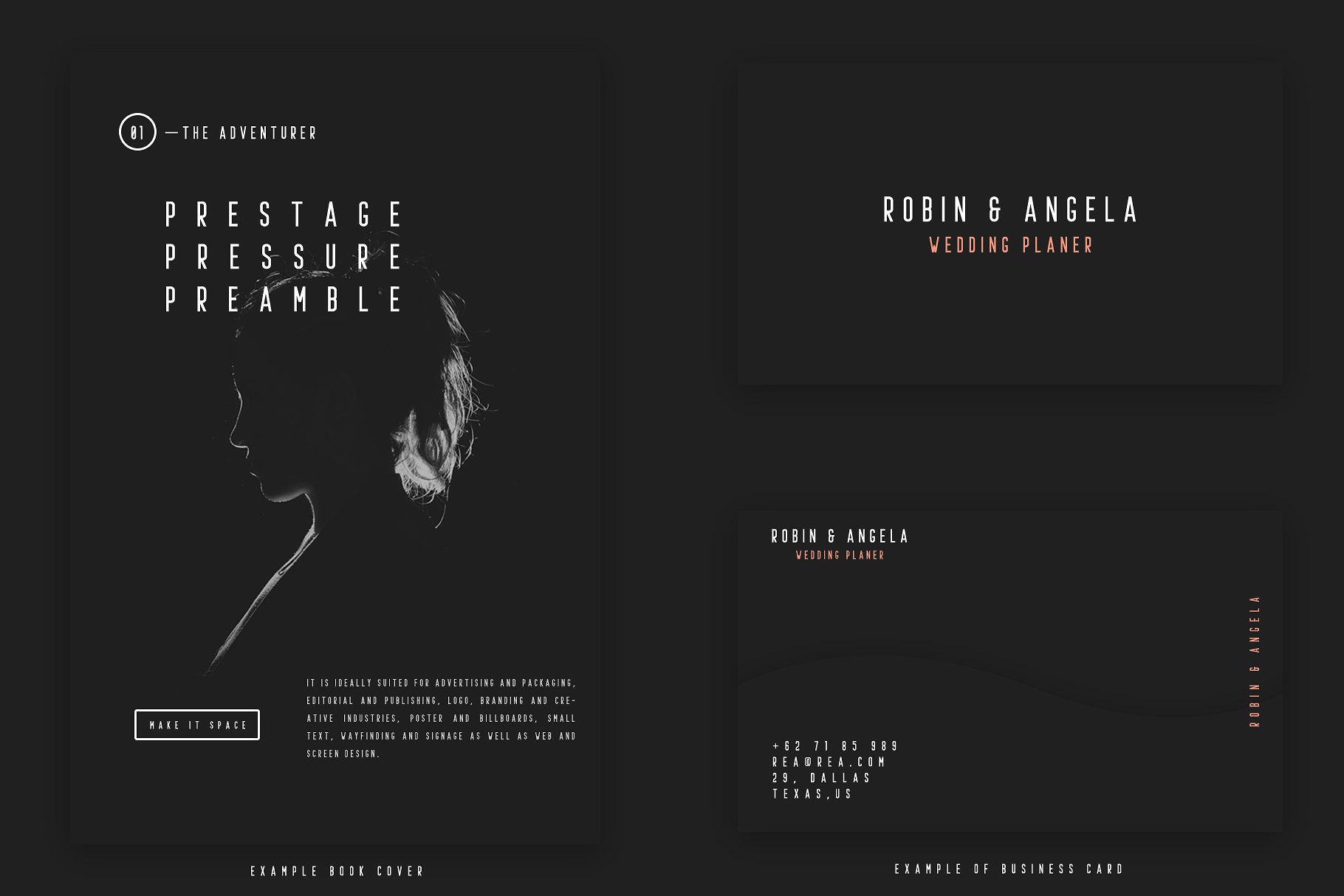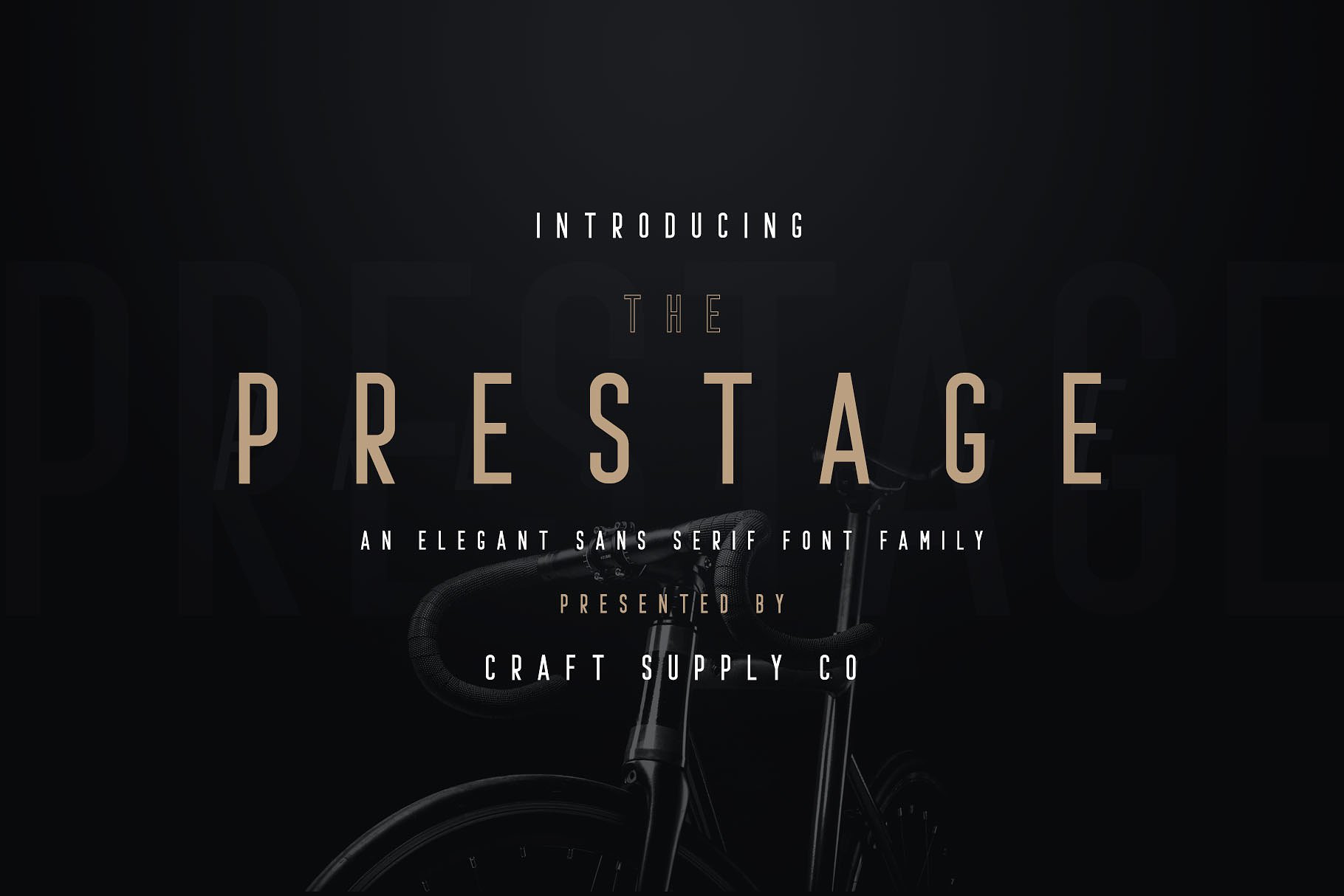
Prestage Typeface
Prestage Font Family
Prestage Typeface
Prestage Font Family is an Elegant bold sans serif with solid and outlined font files. Prestage Font Family is based on the compact solid font, by combining a variety of styles. Suitable for Logo, greeting cards, quotes, posters, branding, name card, stationary, design title, blog header, art quote, typography